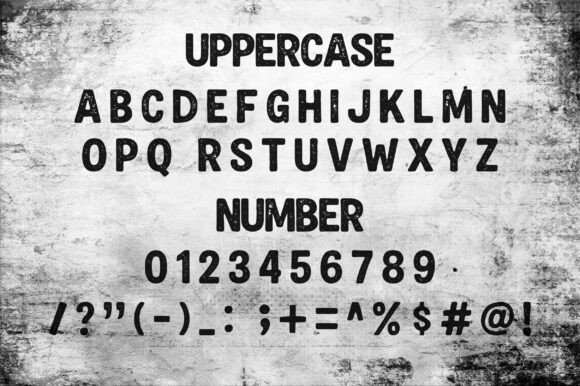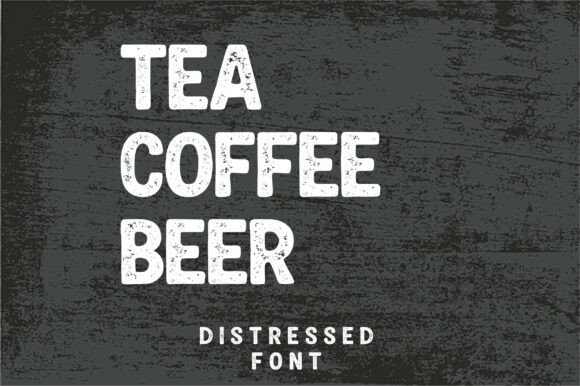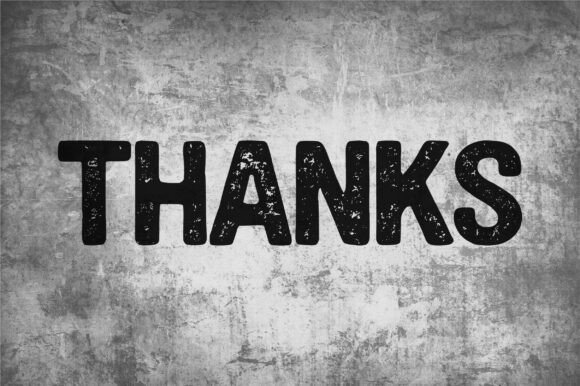
Introducing Dusty Font: The Ultimate Distressed Typeface for Designers and Crafters
Are you looking for a font that can add a touch of ruggedness and vintage charm to your designs? Look no further than Dusty Font, a powerful and versatile display typeface that’s perfect for creating authentic, handmade, and industrial-style graphics. In this article, we’ll explore the features and benefits of Dusty Font, and show you how to use it to take your designs to the next level.
The Power of Distressed Texture
Dusty Font is a bold, all-caps distressed font that features a heavy, integrated texture that gives it a worn, vintage look. The intentional noise and speckling within the letterforms create a genuine stamp or screen-printed aesthetic that’s perfect for designs that need to feel handmade, weathered, or industrial. The rough texture of Dusty Font makes it an ideal choice for projects that require a convincing distressed effect, such as vintage t-shirt designs, branding for craft beer or coffee, grunge music album art, rustic signage, and custom graphics for outdoor and adventure apparel.
Excellent Readability and Versatility
One of the standout features of Dusty Font is its slightly rounded, block-like structure, which ensures excellent readability even at large sizes. This makes it perfect for use in titles and headlines, where you want to make a bold statement and grab the attention of your audience. At the same time, Dusty Font is versatile enough to be used in a wide range of design applications, from print to digital media.
Design Applications for Dusty Font
So, what can you create with Dusty Font? The possibilities are endless, but here are a few ideas to get you started:
- Vintage T-Shirt Designs: Use Dusty Font to create authentic, retro-style t-shirt designs that are perfect for music festivals, outdoor events, or just everyday wear.
- Craft Beer and Coffee Branding: Add a touch of ruggedness and vintage charm to your craft beer or coffee branding with Dusty Font.
- Grunge Music Album Art: Create eye-catching album art that captures the spirit of grunge music with Dusty Font.
- Rustic Signage: Use Dusty Font to create rustic, handmade-style signage that’s perfect for outdoor events, festivals, or businesses.
- Outdoor and Adventure Apparel: Create custom graphics for outdoor and adventure apparel that are both functional and stylish with Dusty Font.
Why Choose Dusty Font?
So, why should you choose Dusty Font for your design projects? Here are just a few reasons:
- Unique and Authentic Look: Dusty Font offers a unique and authentic look that’s hard to achieve with other fonts.
- Highly Versatile: Dusty Font can be used in a wide range of design applications, from print to digital media.
- Excellent Readability: The slightly rounded, block-like structure of Dusty Font ensures excellent readability even at large sizes.
In conclusion, Dusty Font is a powerful and versatile display typeface that’s perfect for designers and crafters who want to add a touch of ruggedness and vintage charm to their designs. With its unique and authentic look, excellent readability, and high versatility, Dusty Font is an essential tool for achieving a convincing distressed effect in titles and headlines. Whether you’re creating vintage t-shirt designs, branding for craft beer or coffee, grunge music album art, rustic signage, or custom graphics for outdoor and adventure apparel, Dusty Font is the perfect choice.